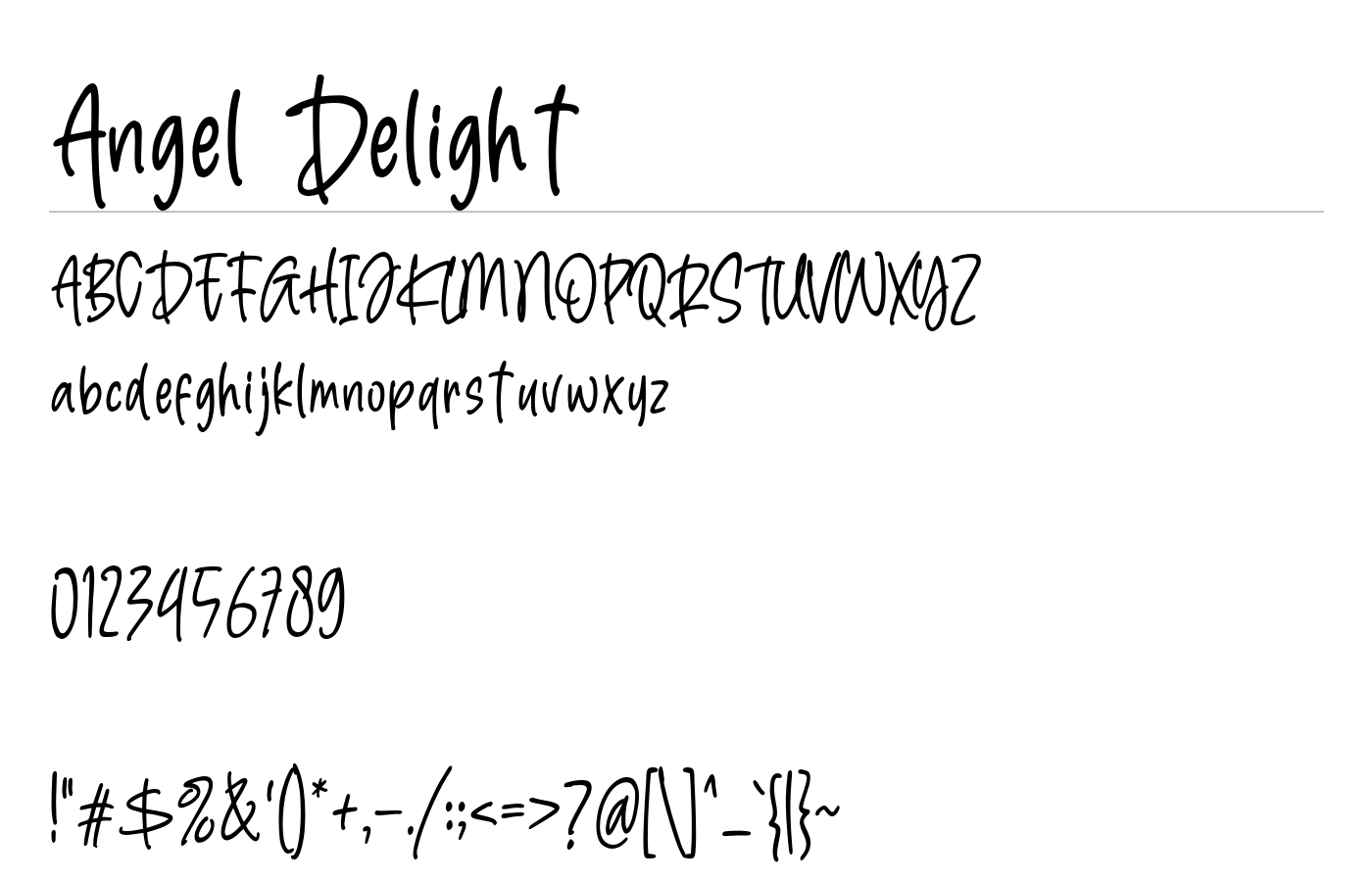
Angel Delight is a playful, casual handwritten sans serif font with a light weight and an airy, slightly uneven stroke that mimics natural penmanship. Its tall x-height and quirky letterforms give it an approachable and friendly personality, making it ideal for informal branding, creative projects, and personal communications where a warm, human touch is desired. This font works well for headings, logos, and invitations that seek to convey charm and individuality.
Angel Delight Font
About Angel Delight Font
| Font family | Angel Delight Font |
| Designer | Rangga Singgih Subekti |